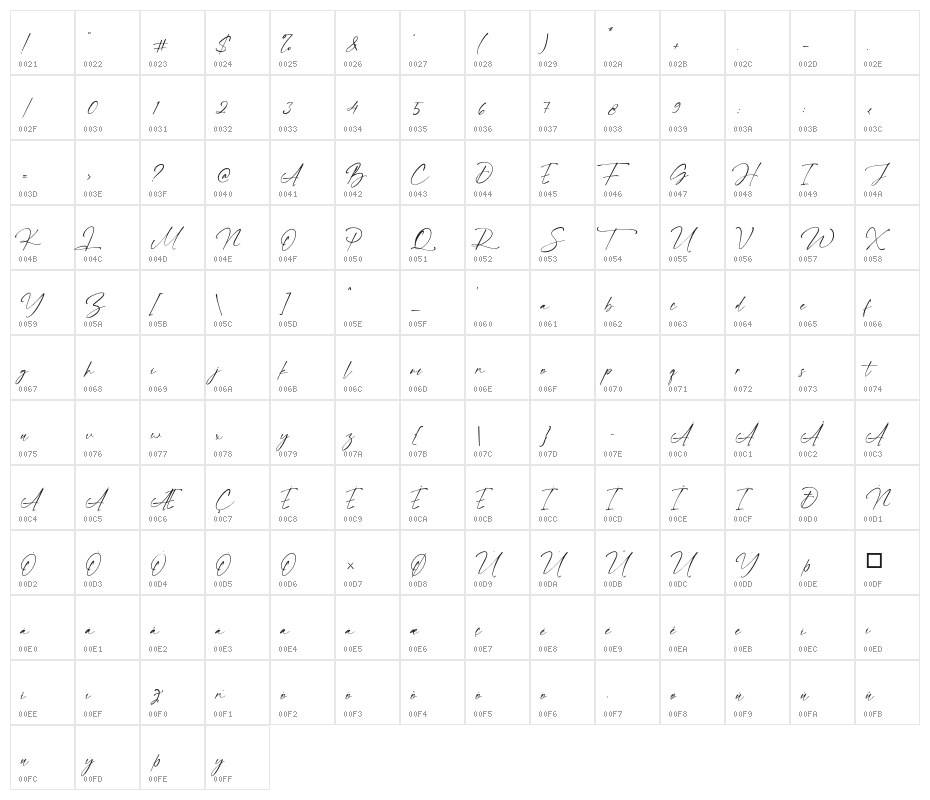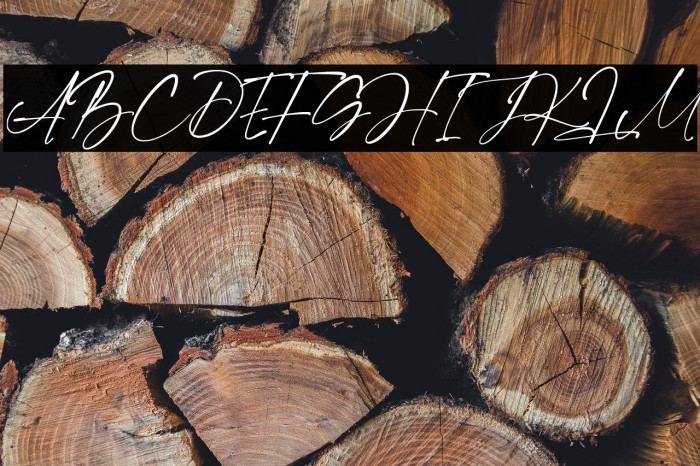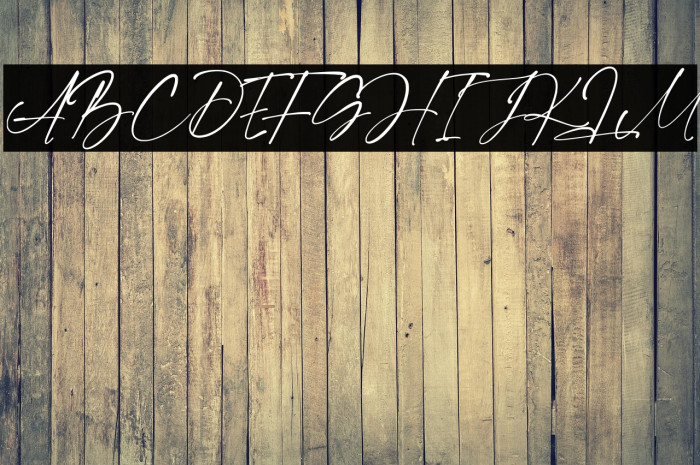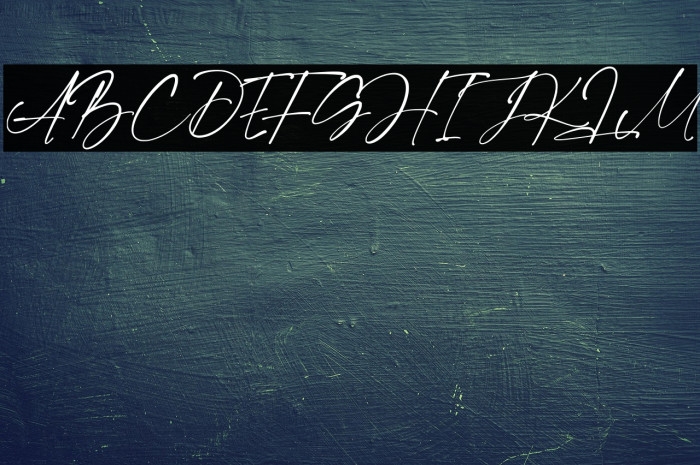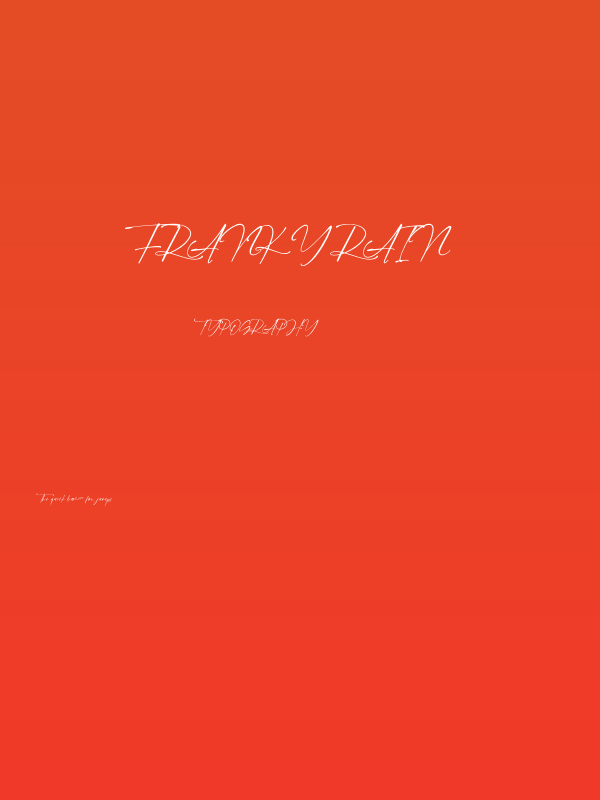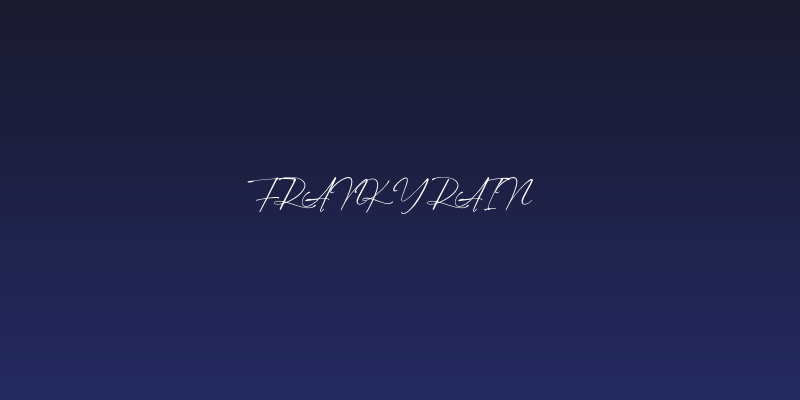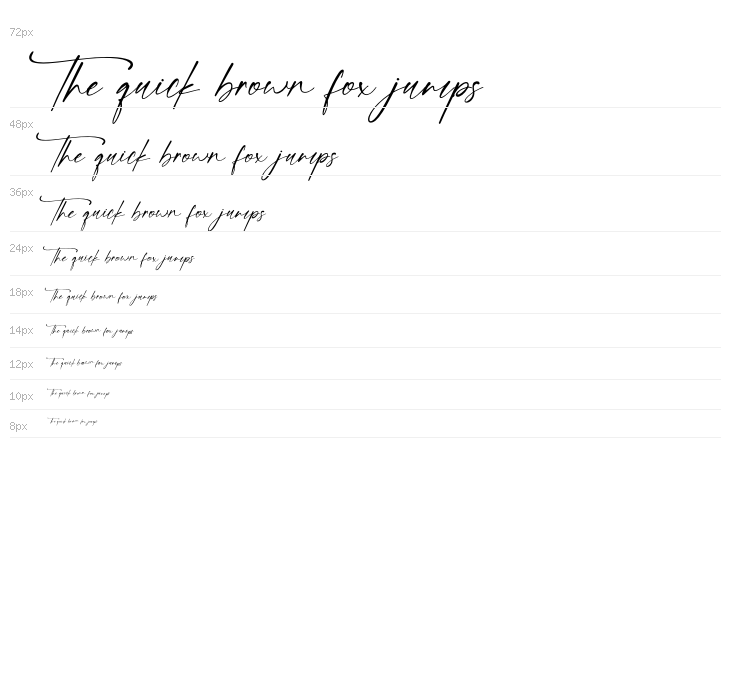
Franky Rain Font
Franky Rain Description
Elegant and flowing script font with a handwritten style, featuring thin strokes and high contrast.
| Use Case | Logos, Invitations |
| Proposed Projects | Invitations, greeting cards, branding. |